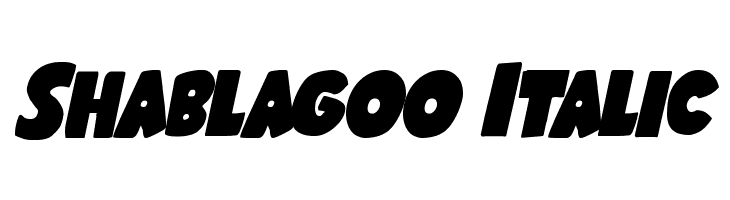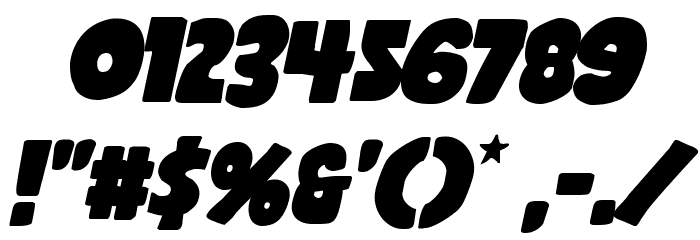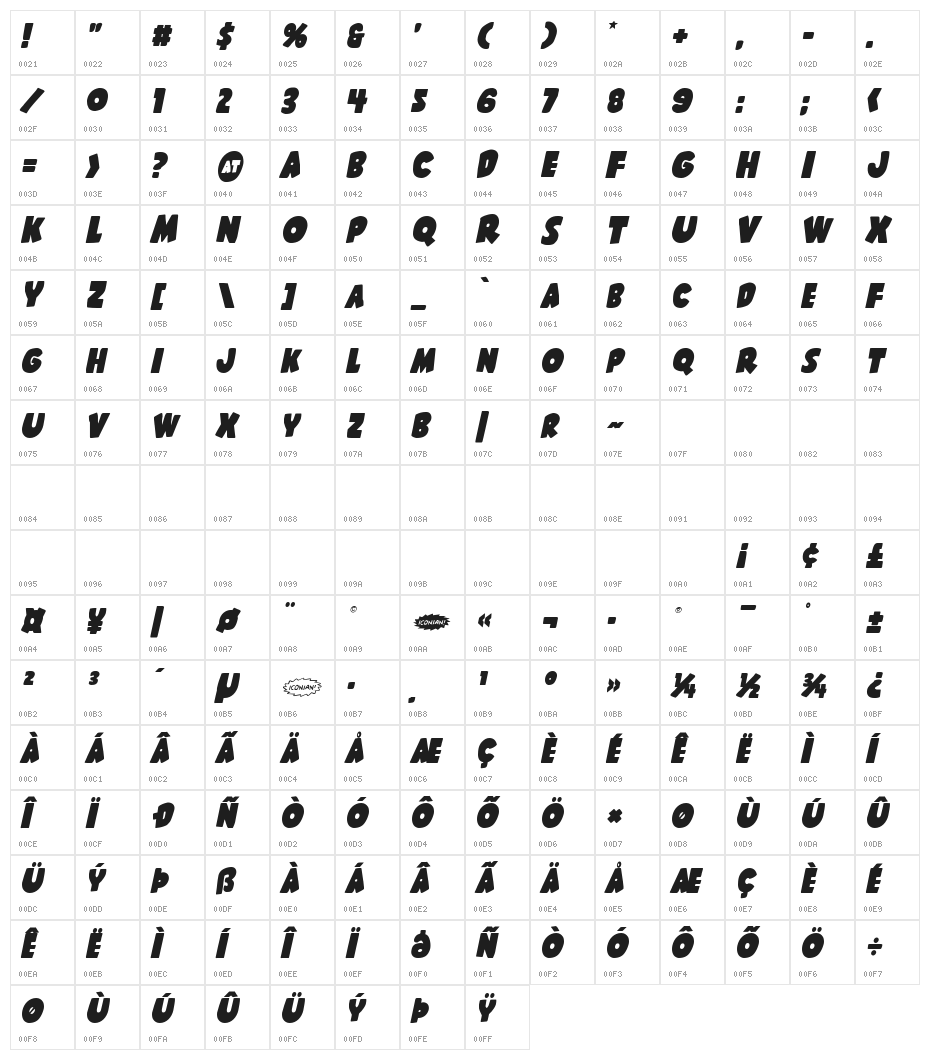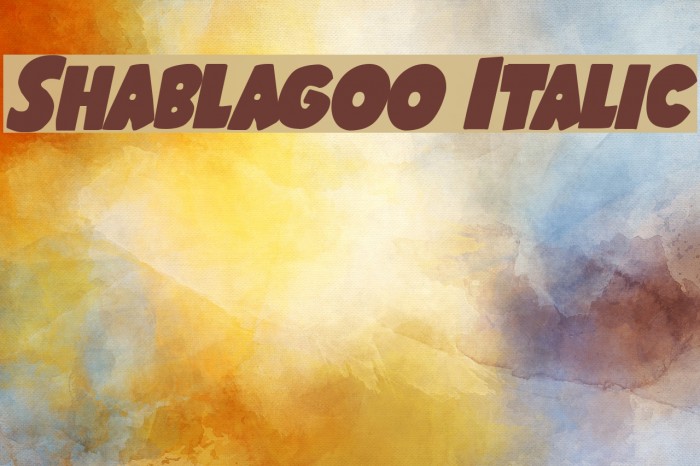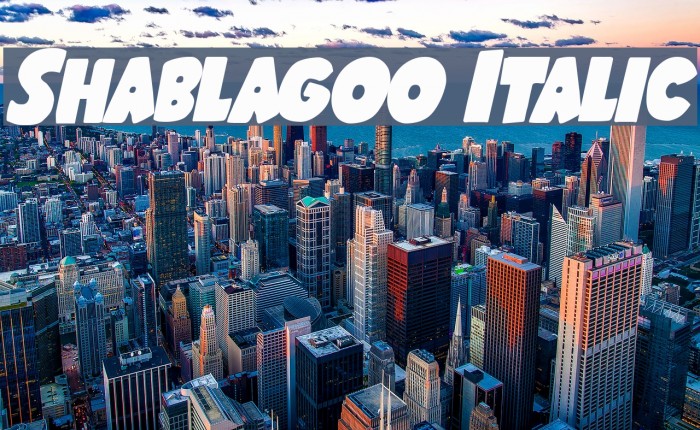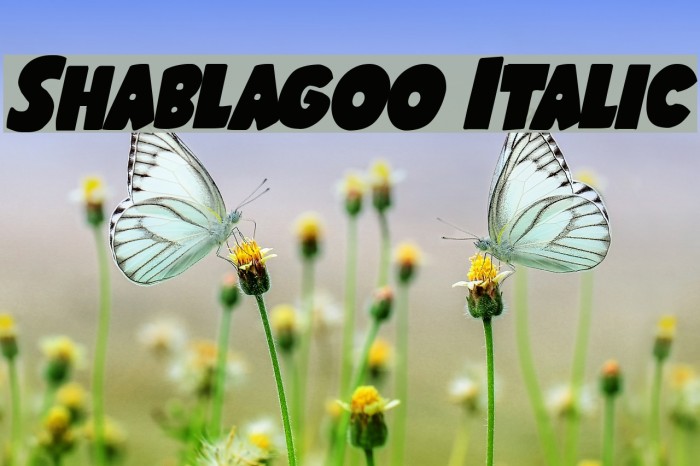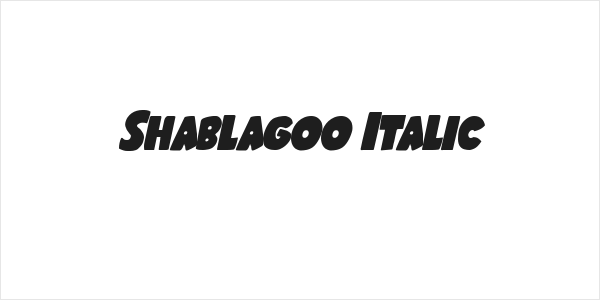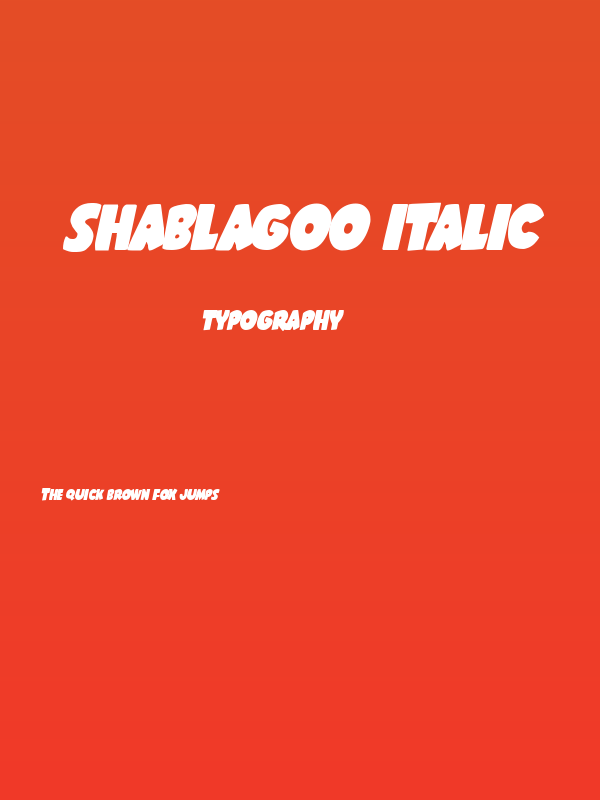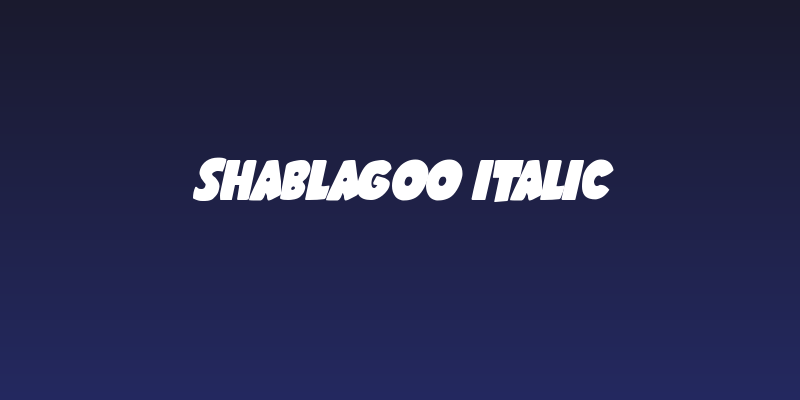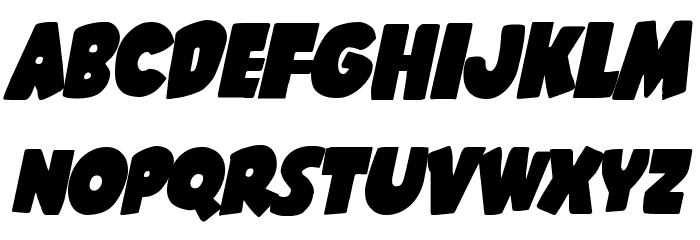
Shablagoo Italic Font
Shablagoo Italic Description
This font features a bold and playful design with a strong, dynamic presence. The characters are heavily weighted, giving them a substantial and impactful appearance. Each letter is slightly slanted, adding a sense of movement and energy. The strokes are thick and consistent, contributing to a cohesive and robust look. The font's style is reminiscent of comic book lettering, making it ideal for projects that require a fun and engaging aesthetic. The spacing between characters is tight, which enhances the compact and bold nature of the typeface. Overall, this font is perfect for designs that aim to capture attention and convey a lively, spirited message.
Overall StylePlayful, Energetic
Proposed ProjectsIdeal for comic books, children's books, posters, and playful branding.
AuthorFonts by Iconian Fonts